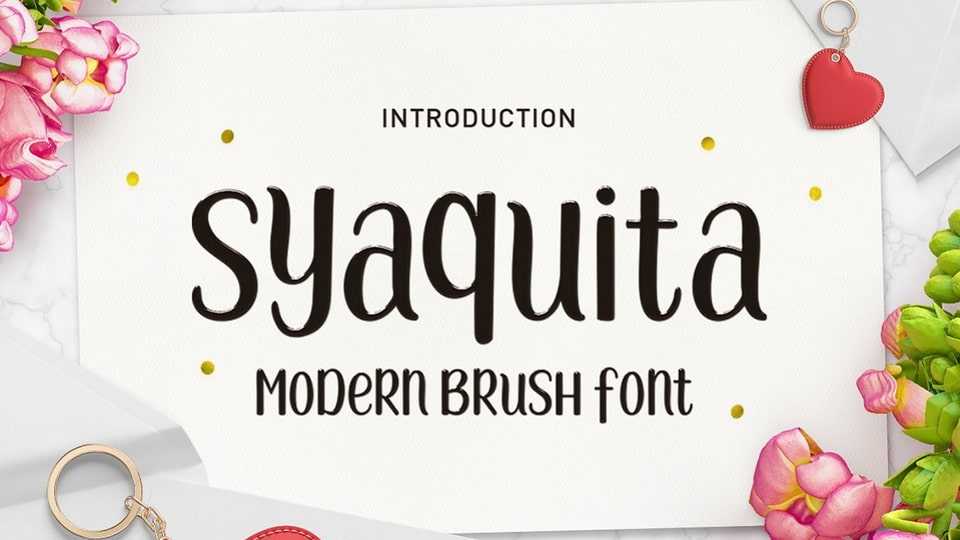
Download Syaquita font, a modern brush typeface, stylish and organic. Can be used for stationery, fashion, logo, merchandise, books, clothing, magazines, cover artwork, etc.